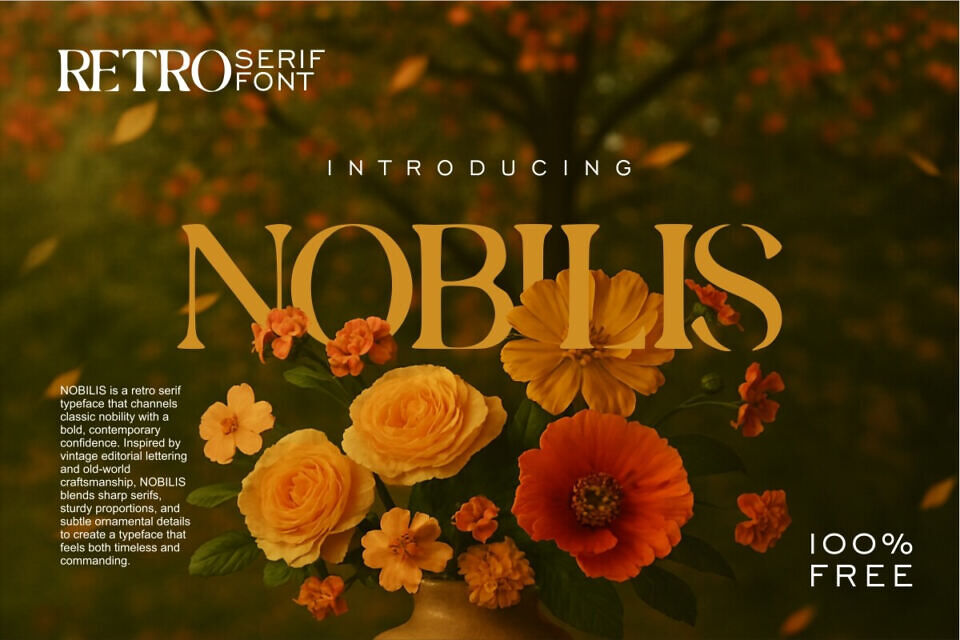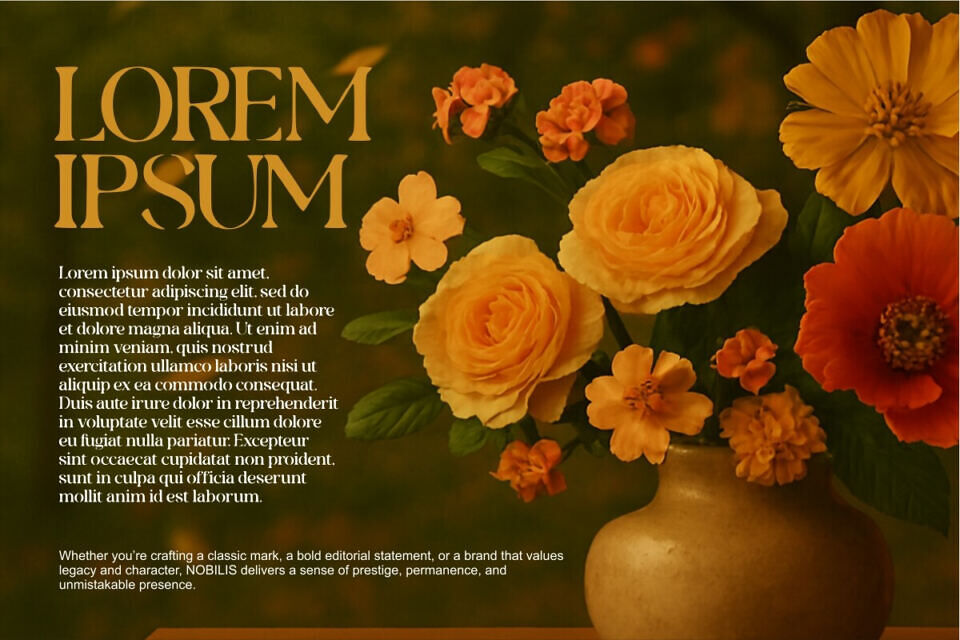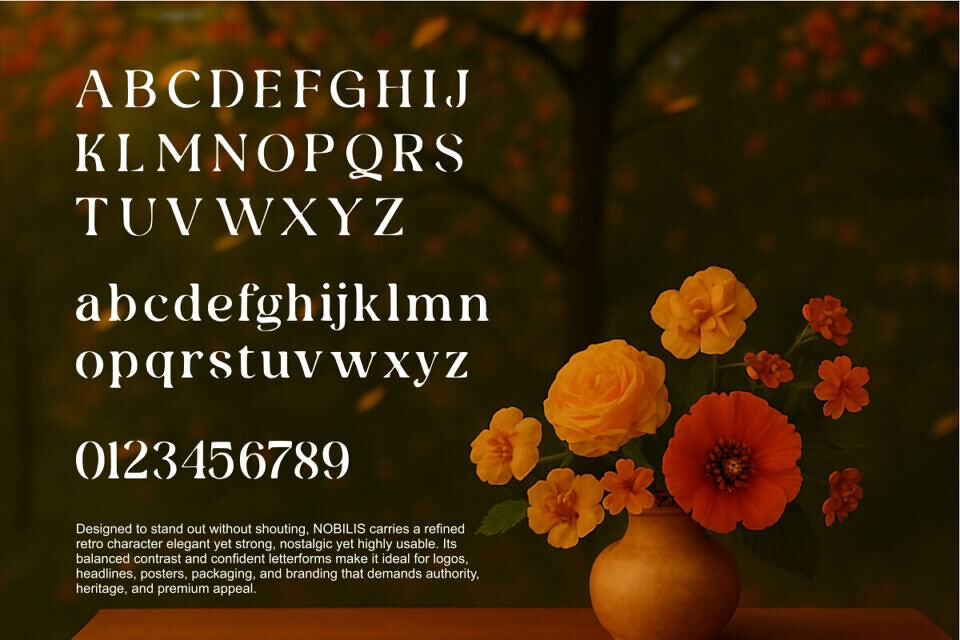
NOBILIS is a retro serif typeface that channels classic nobility with a bold, contemporary confidence. Inspired by vintage editorial lettering and old-world craftsmanship, NOBILIS blends sharp serifs, sturdy proportions, and subtle ornamental details to create a typeface that feels both timeless and commanding.
Designed to stand out without shouting, NOBILIS carries a refined retro character elegant yet strong, nostalgic yet highly usable. Its balanced contrast and confident letterforms make it ideal for logos, headlines, posters, packaging, and branding that demands authority, heritage, and premium appeal.